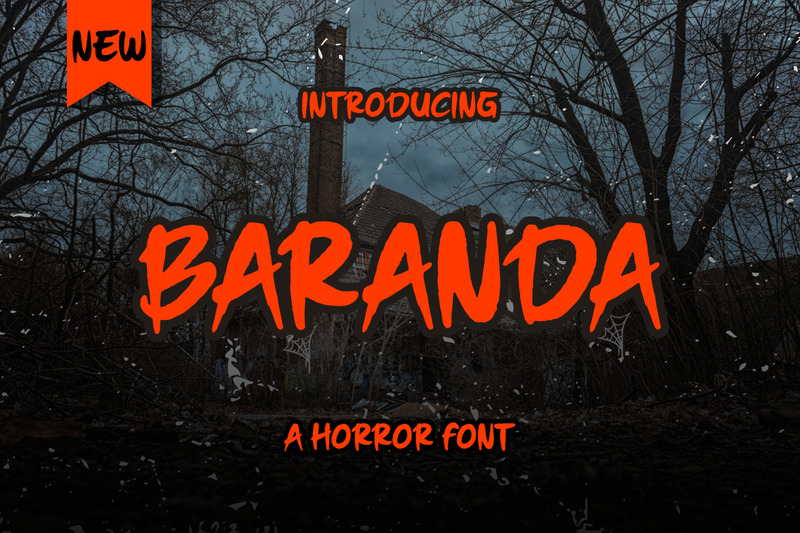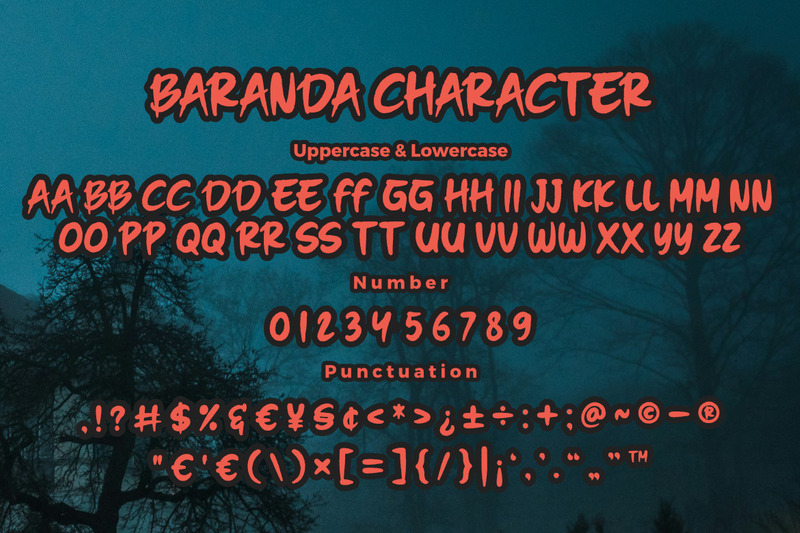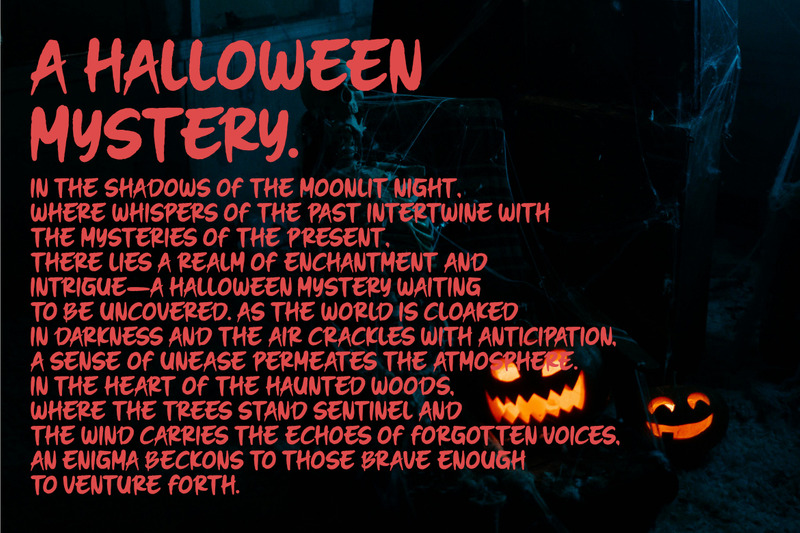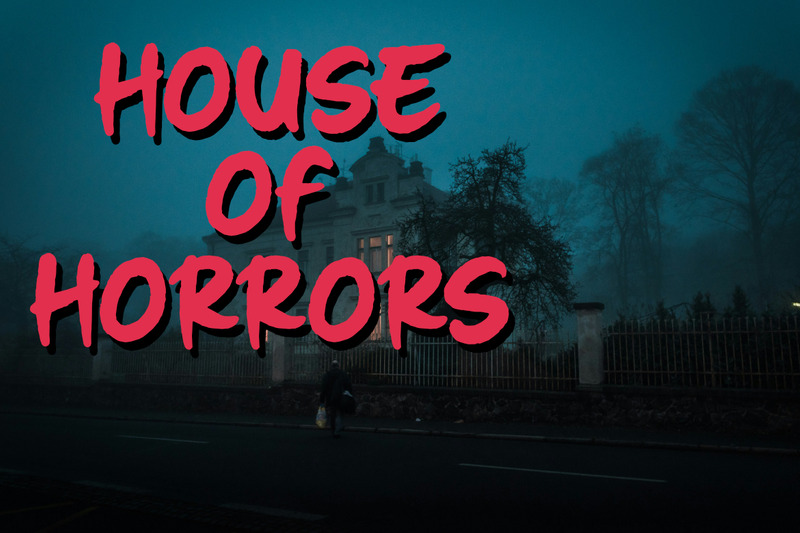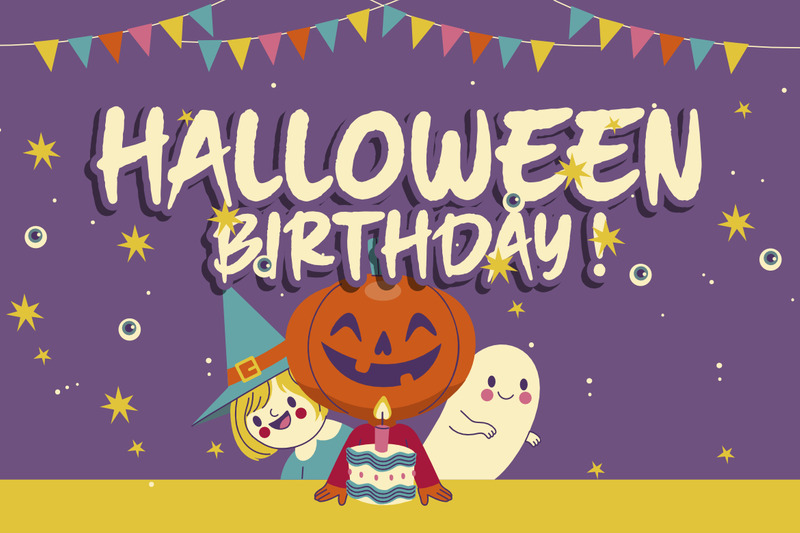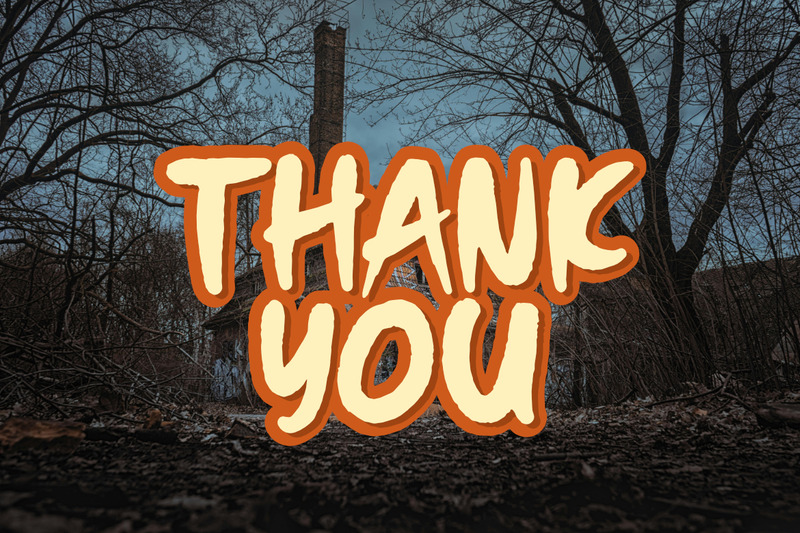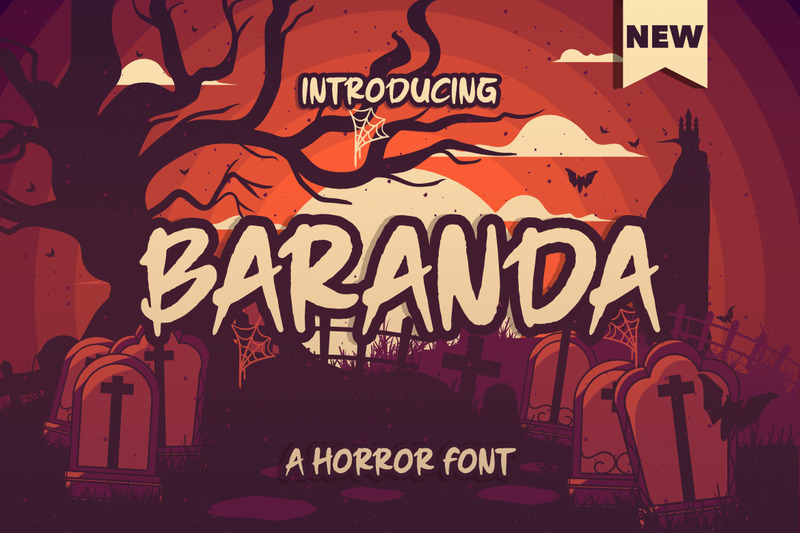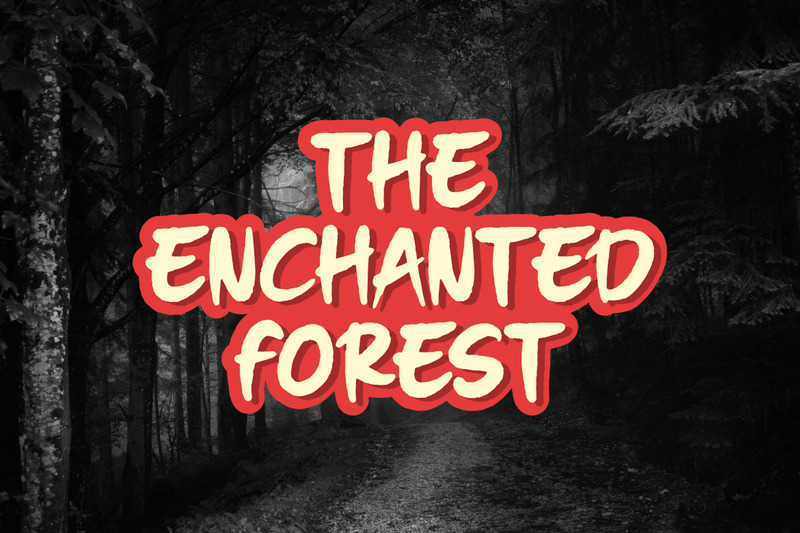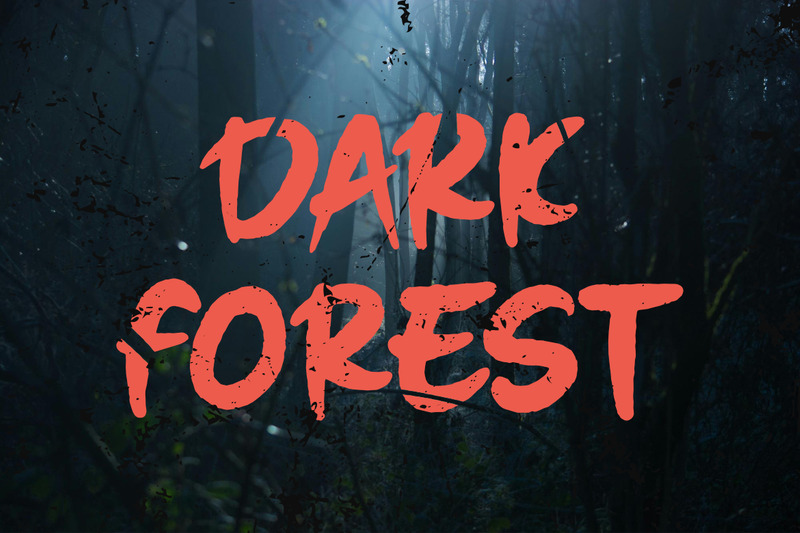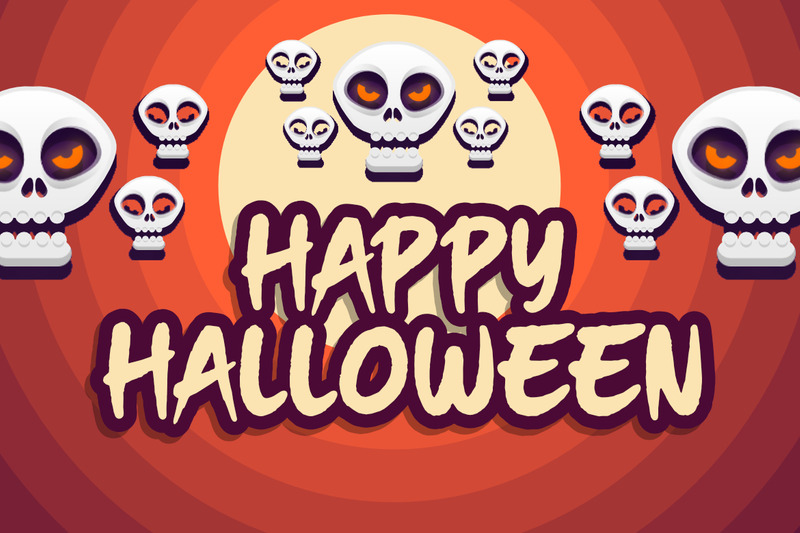
Baranda a Horror Premium Font
**Baranda a Horror Font**, This font is made with a high premium quality level which you can use as flyers, quotes, posters, banners, packaging, merchandise, logotypes and much more.
**FEATURES :**
* Uppercase
* Lowercase
* Number
* Punctuation
* Multilingual